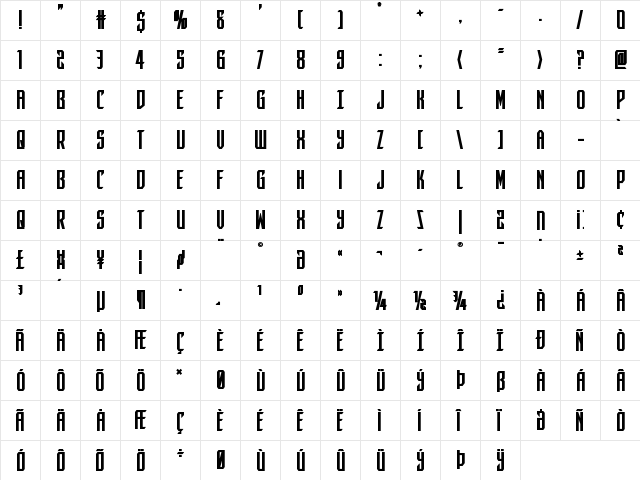
Dark Dominion Bold Bold
Design Context for Dark Dominion Bold Typeface
Dark Dominion Bold is a composed and adaptable typeface that performs quietly and consistently across a wide range of design contexts. The heavy weight commands attention and anchors typographic hierarchies.